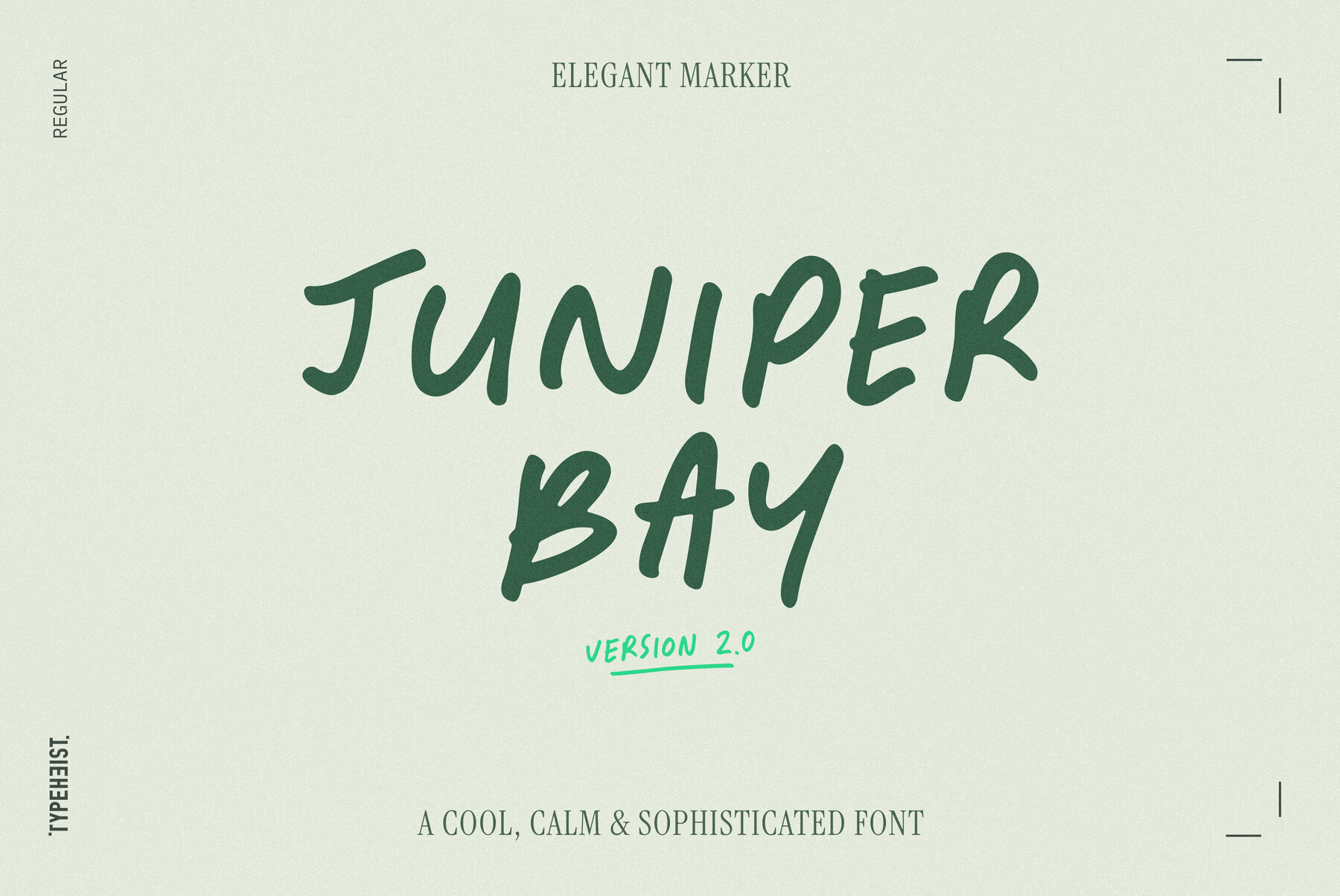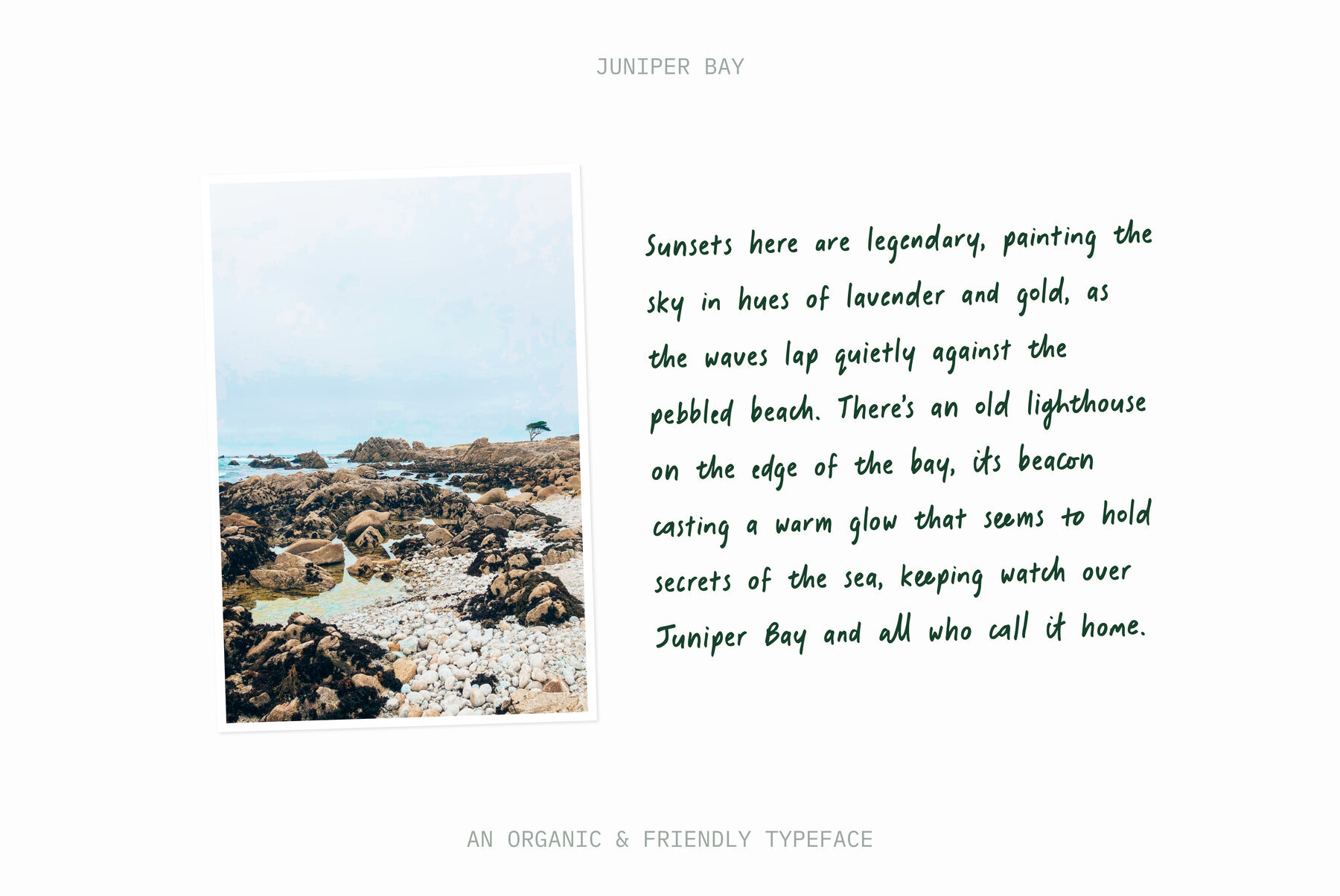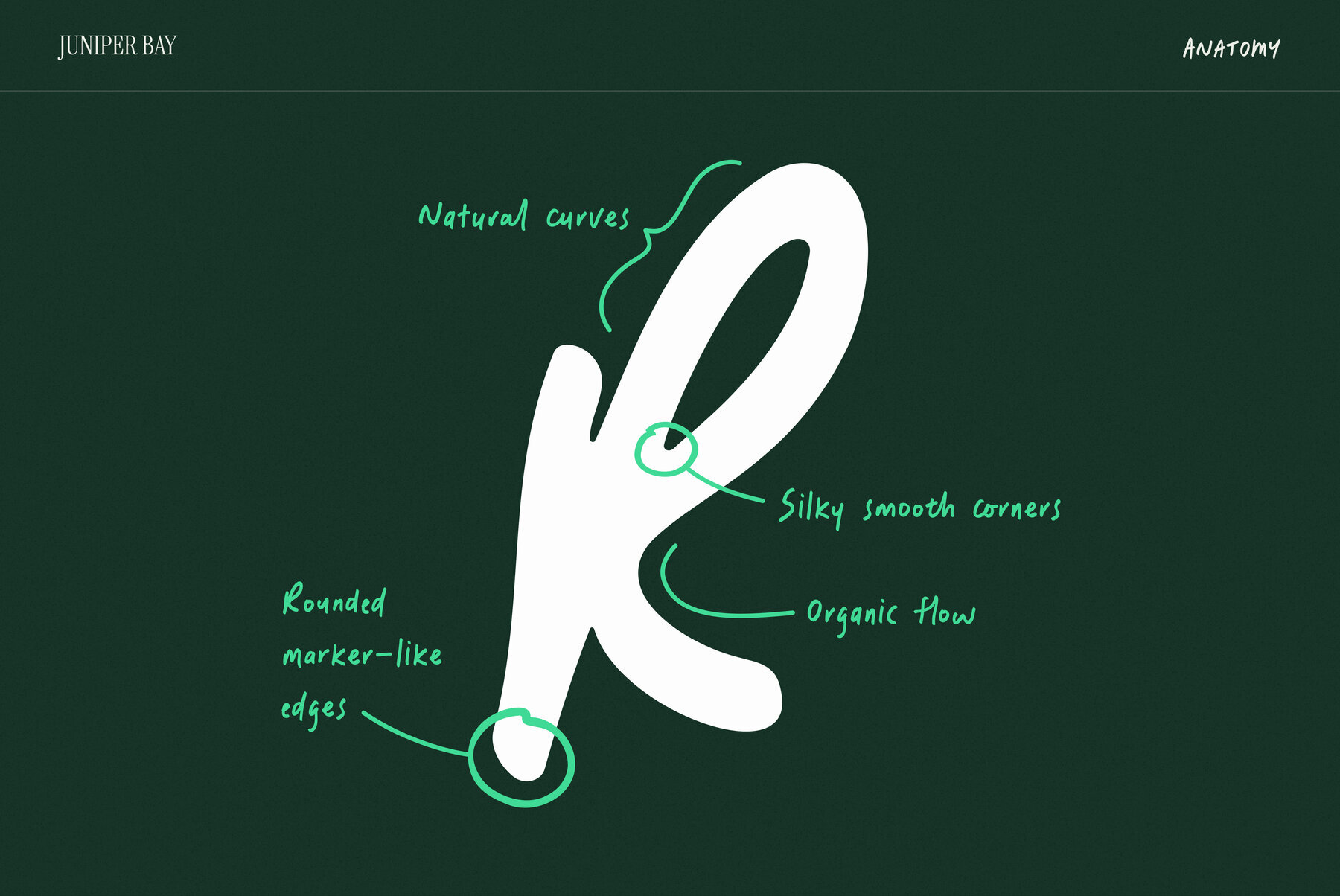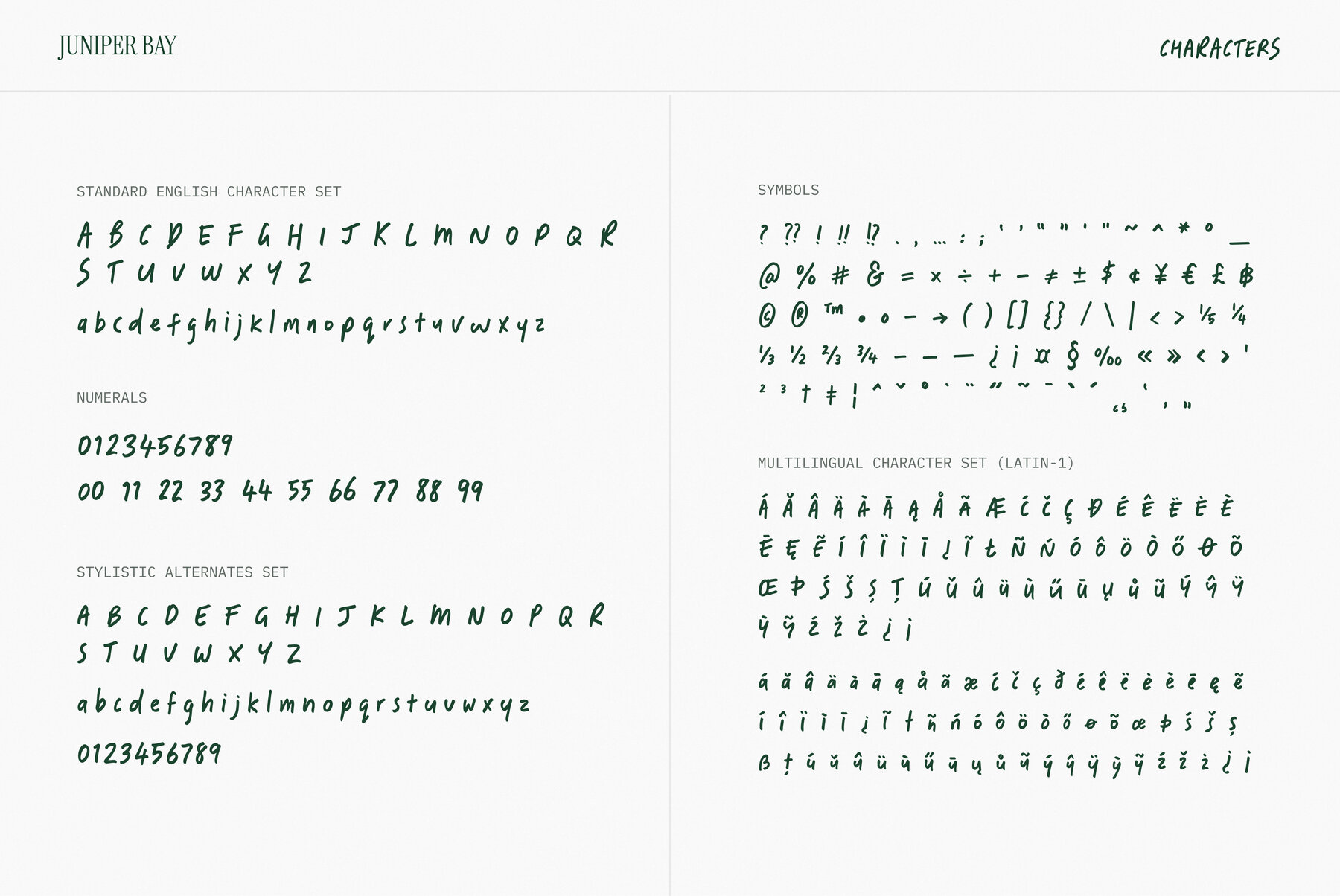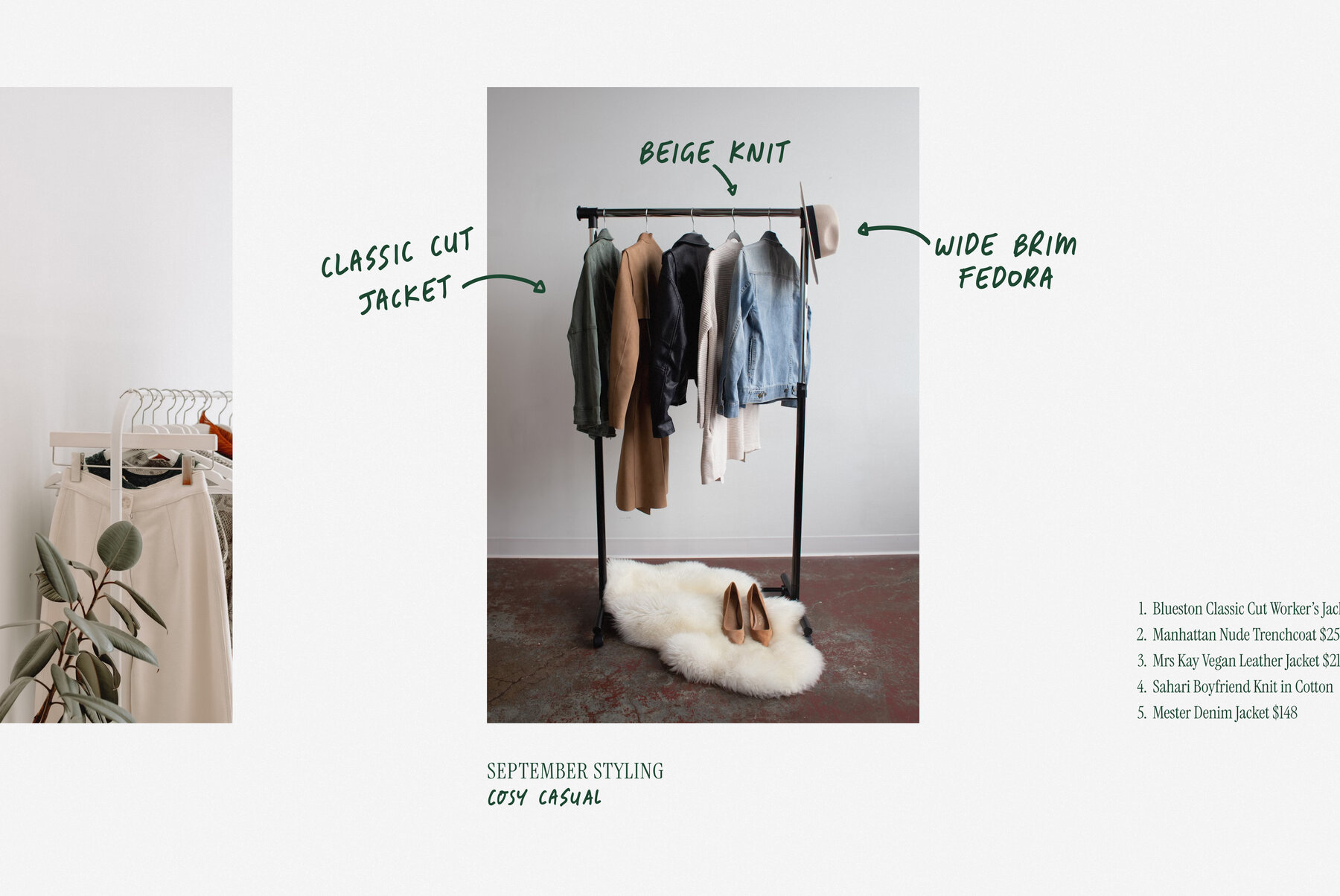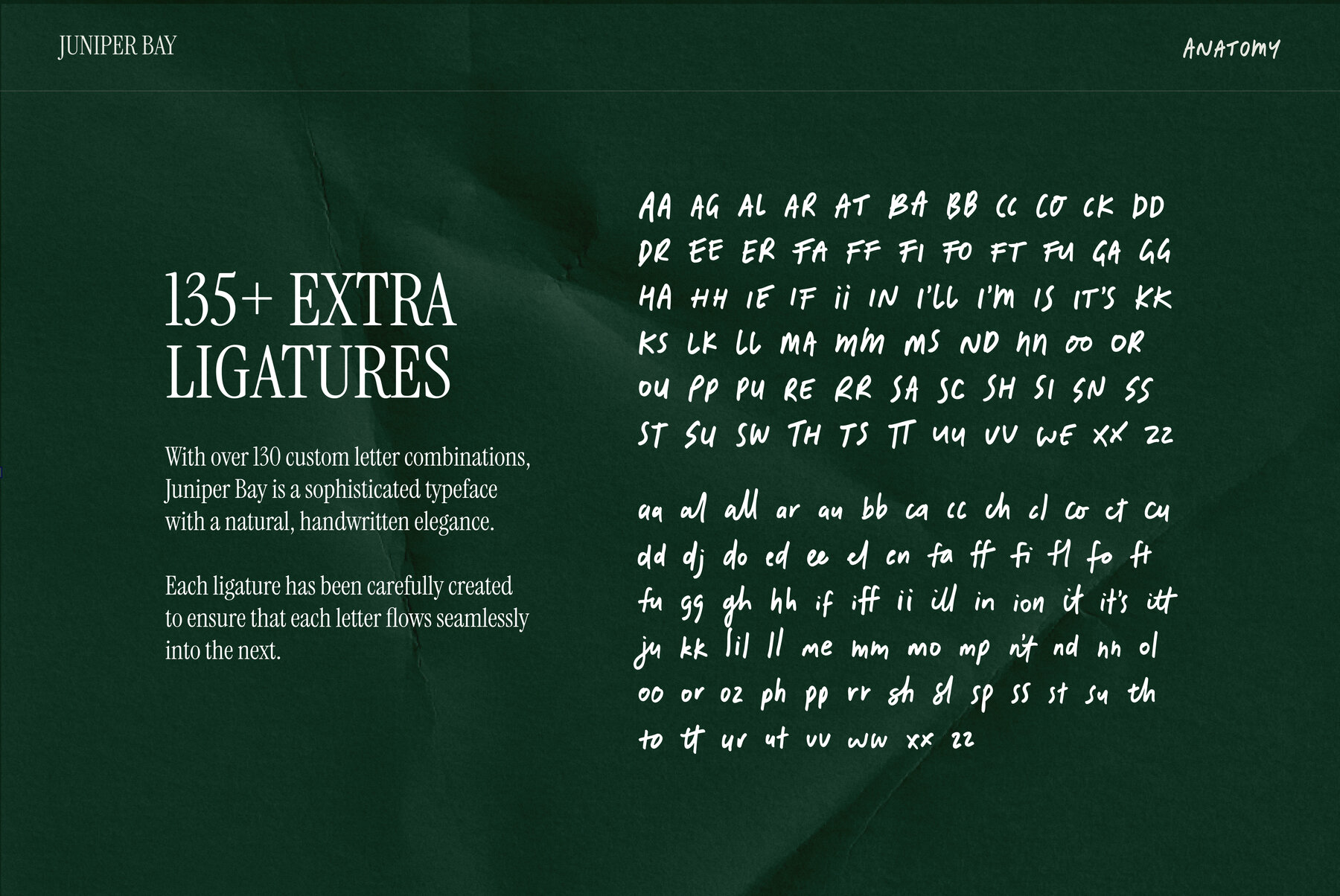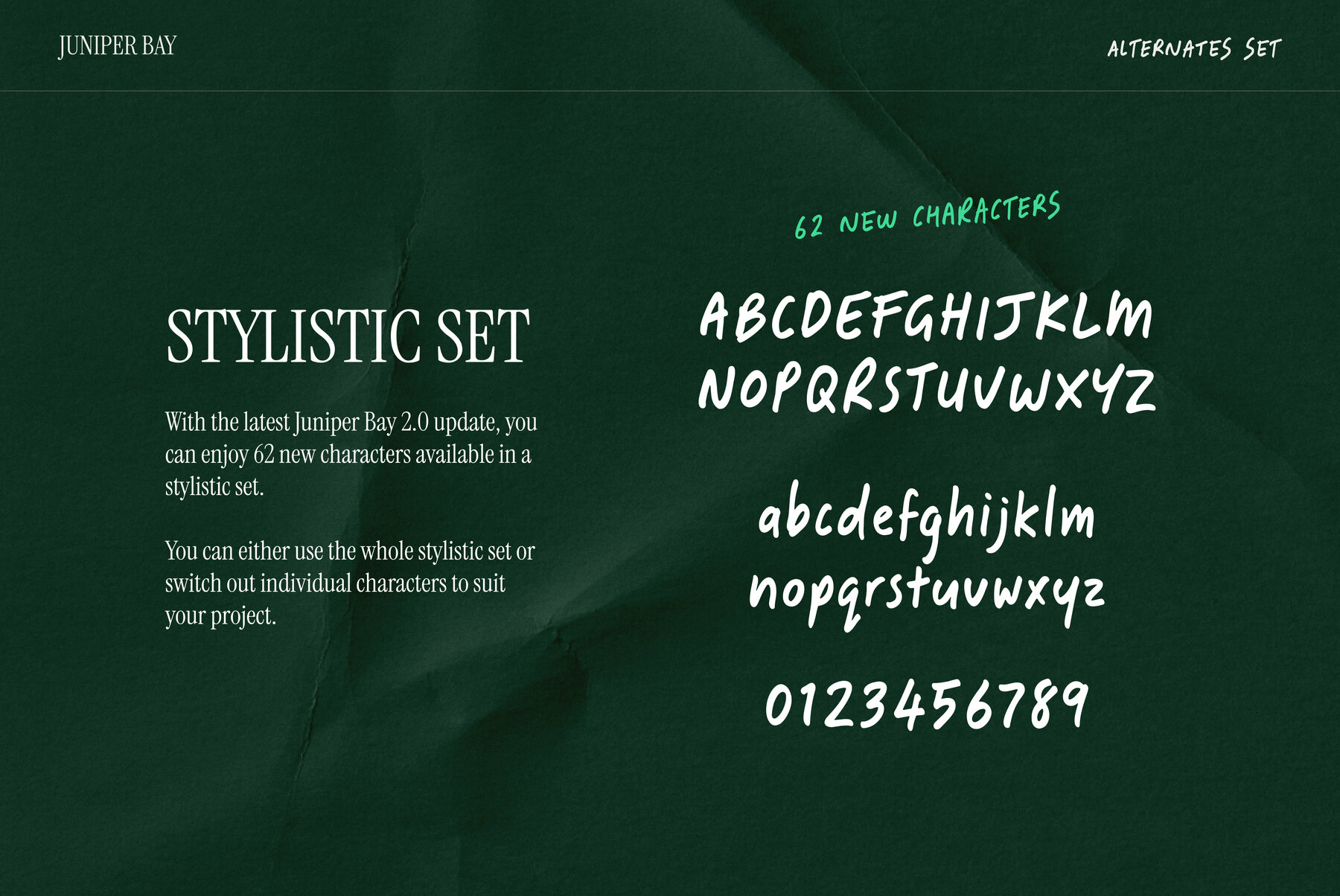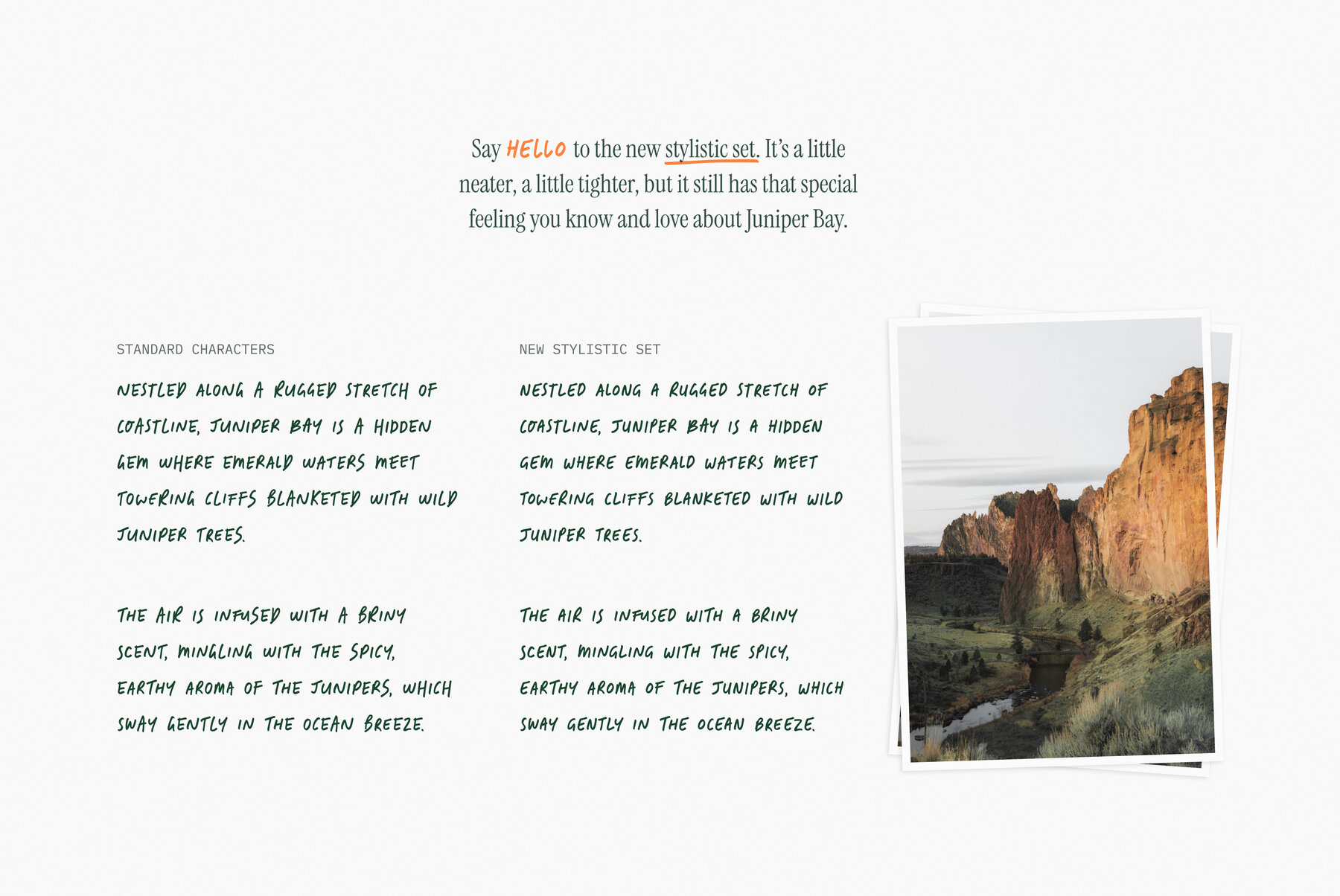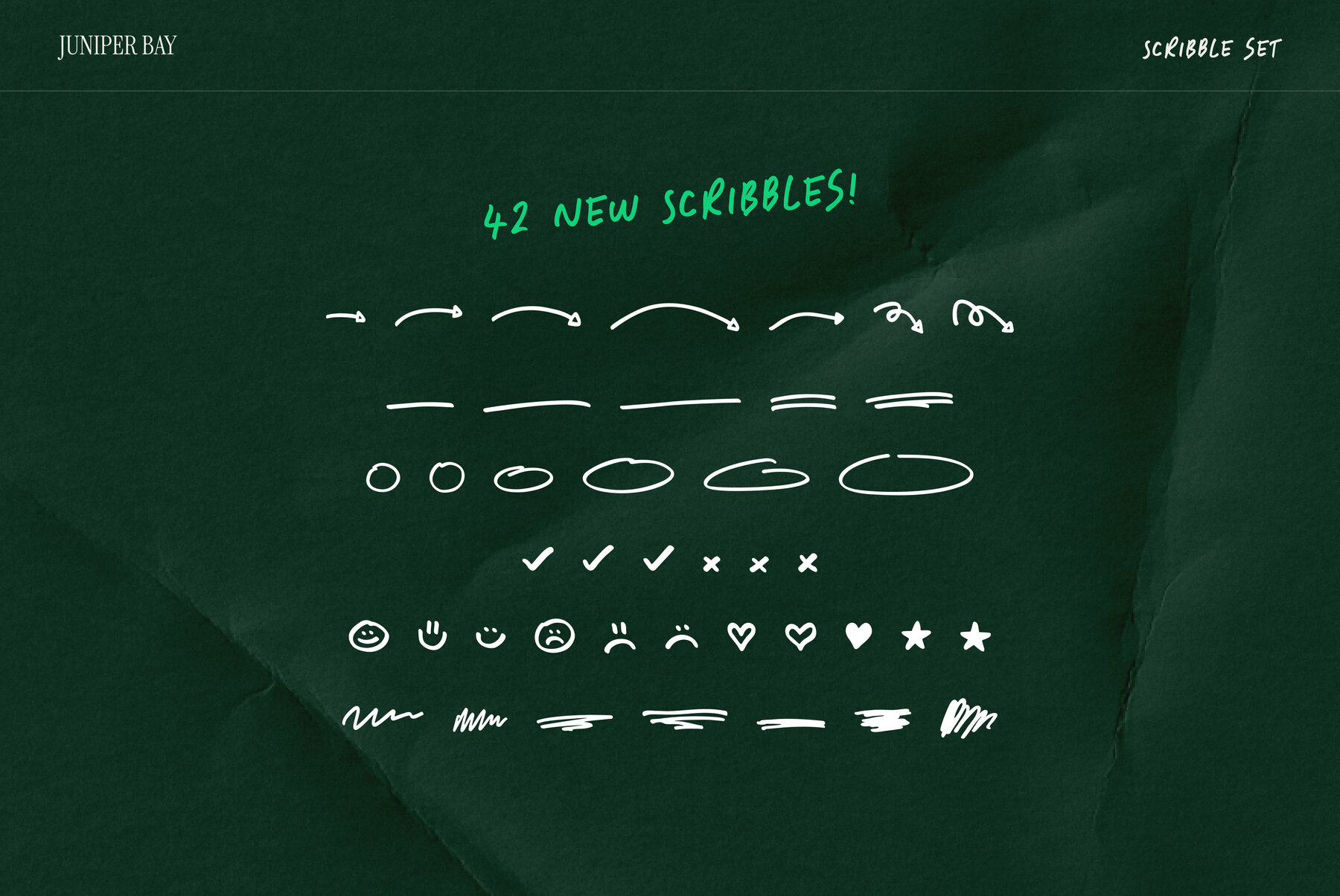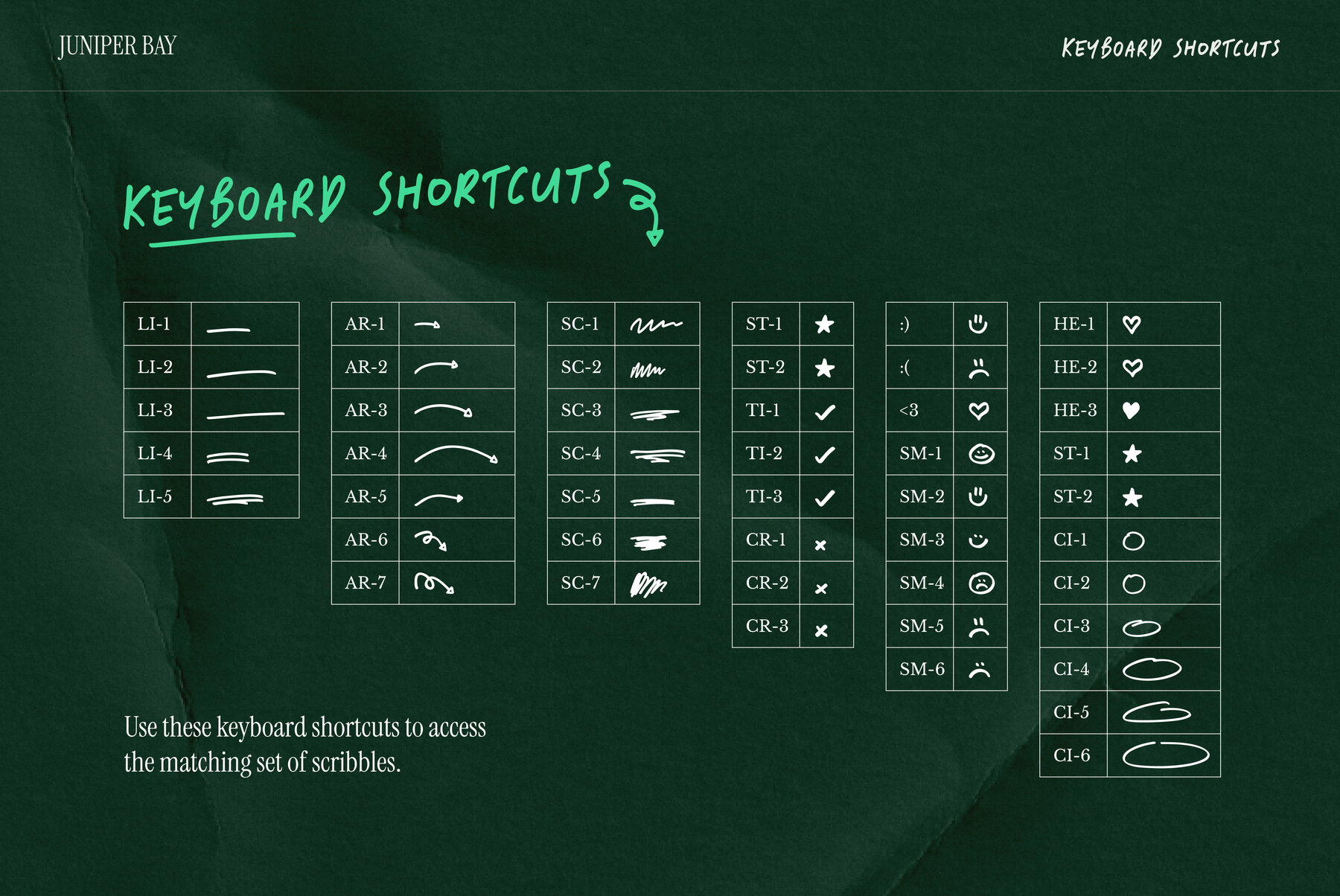
Juniper Bay Font
Juniper Bay
Juniper Bay is a cool, calm & sophisticated marker typeface with an organic feel and effortless vibe. Bringing a natural, handwritten elegance, it's perfect for your next design. Whether you're crafting a logo, writing poetry, creating social media graphics, or working on photography, Juniper Bay's versatility will take your work to the next level. Juniper Bay has over 130 custom letter combinations and each ligature has been carefully created to ensure that each letter flows seamlessly into the next. The result is a beautiful, cohesive look that will bring warmth and casual charm to any design